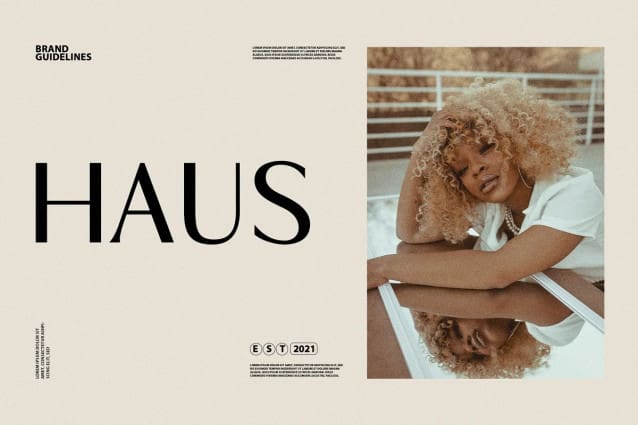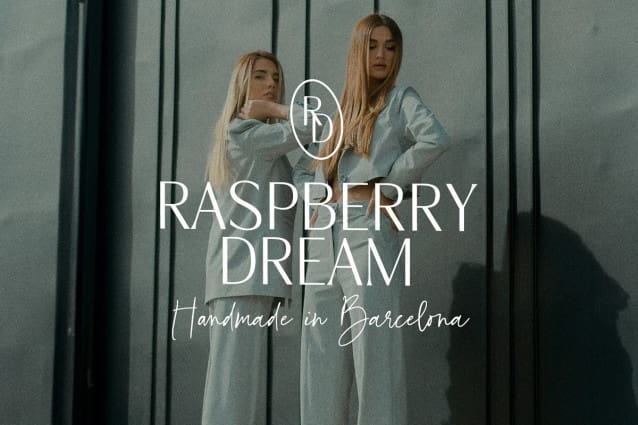
Montu Font Family
Montu Font Family, is an elegant, modern sans serif font. It includes upright and Italic style. This is a perfect for any project
Font Features:
10 fonts in family
Full Set of standard alphabet and punctuation
Language support: All European languages
Multilingual Characters AÁĂÂÄÀĀĄÅÃÆBCĆČÇĊDÐĎĐEÉĚÊËĖÈĒĘẼFGĞĢĠḠHĦIIJÍÎÏİÌĪĮĨJKĶLĹĽĻŁMNŃŇŅÑ OÓÔÖÒŐŌØÕŒPÞQRŔŘŖSŚŠŞȘẞTŤŢȚUÚÛÜÙŰŪŲŮŨVWẂŴẄẀXYÝŶŸỲỸZŹŽŻ aáăâäàāąåãæbcćčçċdðďđeéěêëėèēęẽfgğģġḡhħiıíîïìijīįĩjȷkķlĺľļłmnńňņñoóôöòőōøõœpþ qrŕřŗsśšşșßtťţțuúûüùűūųůũvwẃŵẅẁxyýŷÿỳỹzźžż